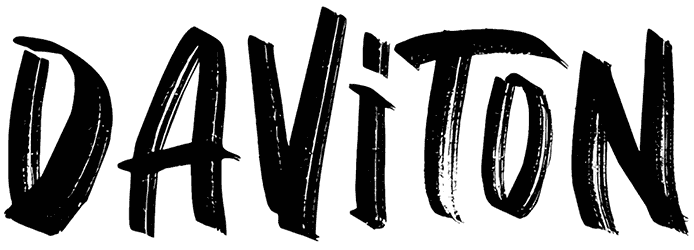
A professional graphic designer would never overlook a magical script font such as Daviton that carries a feeling of personalization, disorder, grunge, and tenderness. This brush font offers two distinctive versions of uppercase letters, thus the lack of lowercase letters is negligible. Since it comes with crooked and tilted characters, it would look perfectly good on logos, business cards, book covers, flyers, or menus.